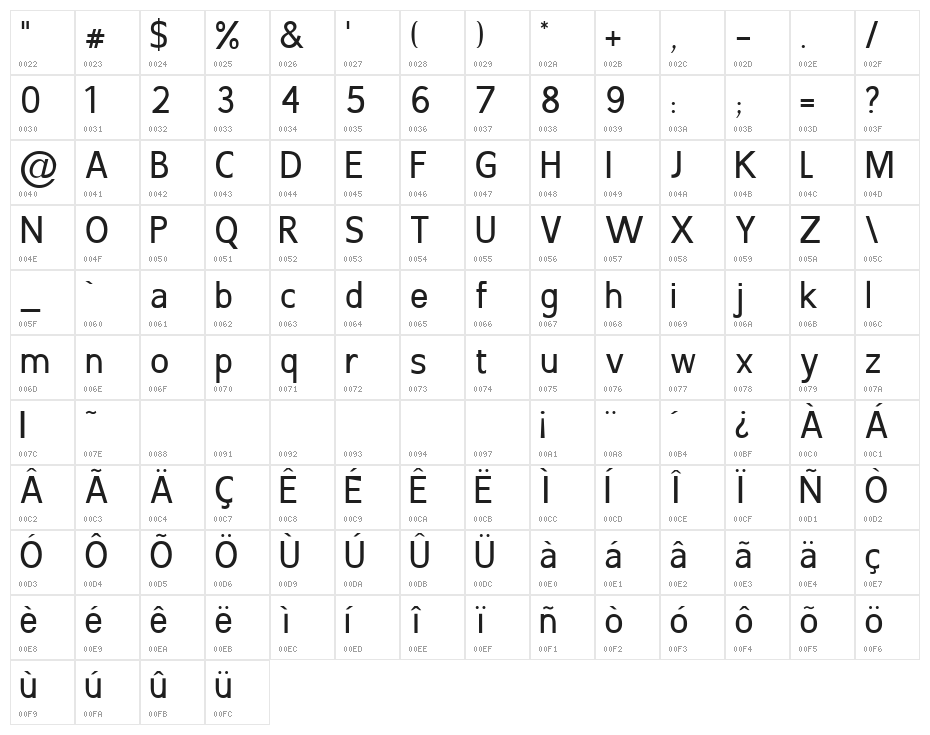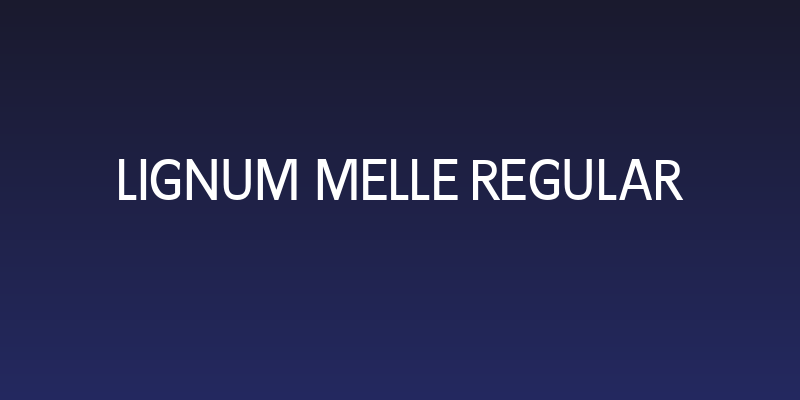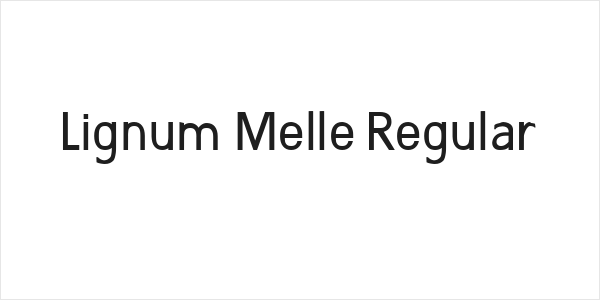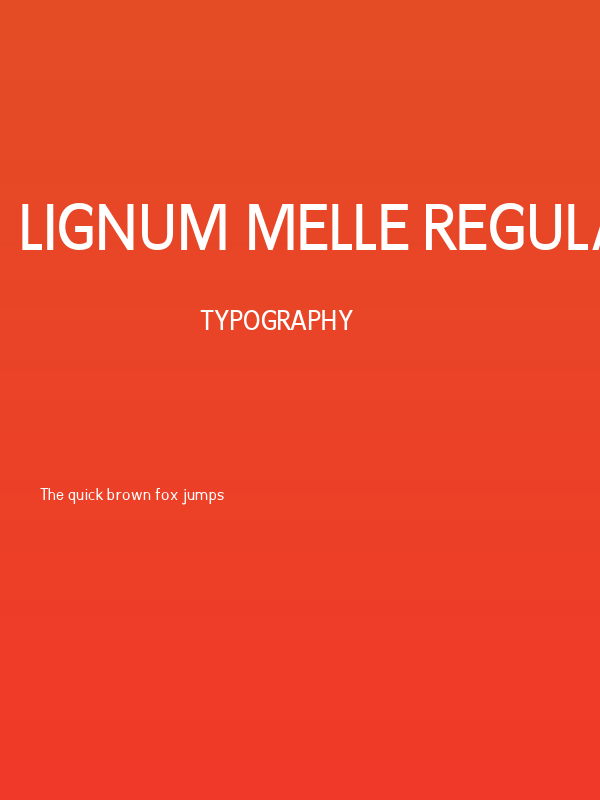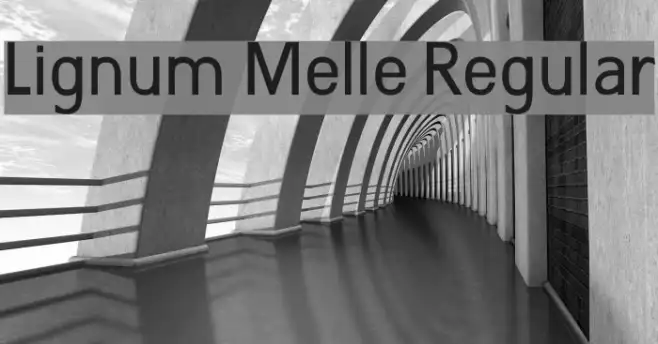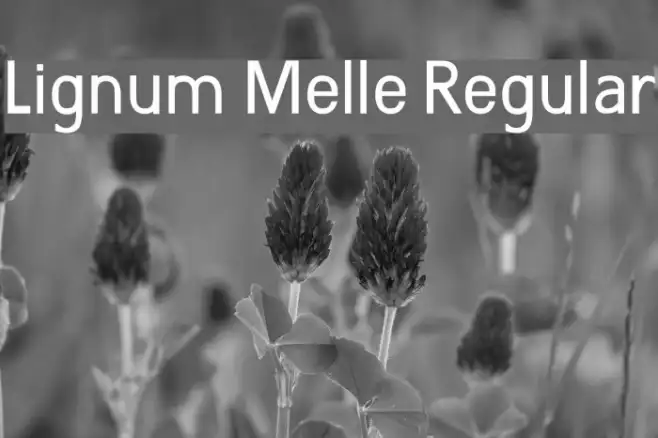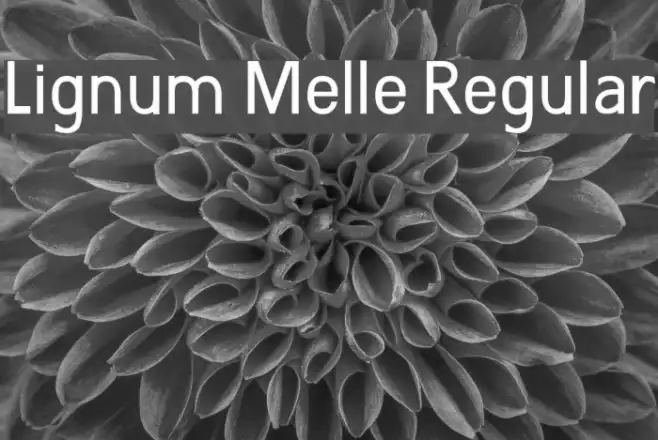
Lignum Melle Regular Font
Lignum Melle Regular Description
This font features a clean and modern sans-serif style, characterized by its geometric shapes and uniform stroke width. The uppercase letters are bold and assertive, while the lowercase letters maintain a consistent and harmonious appearance. The numerals are clear and legible, making them suitable for various applications. Special characters are well-defined, adding versatility to the font's usage. The overall design is minimalistic, focusing on readability and simplicity, making it ideal for contemporary design projects.
| Proposed Projects | Ideal for branding, web design, advertising, and editorial layouts where clarity and modernity are essential. |